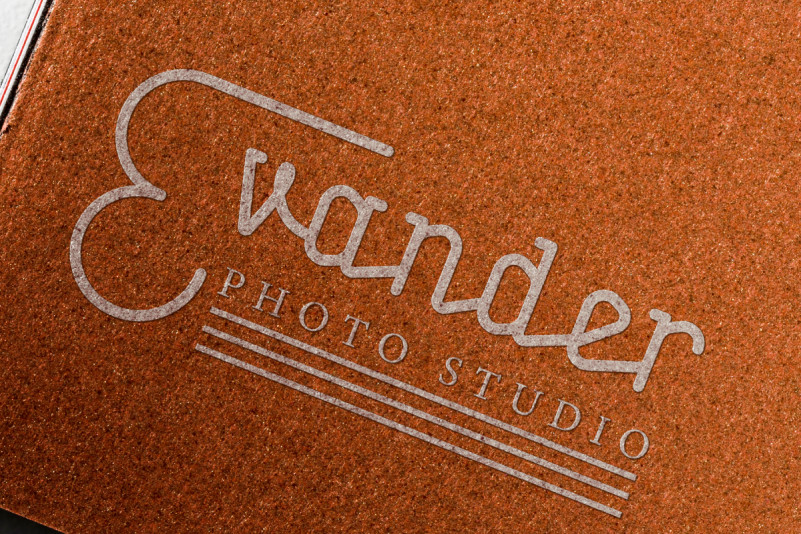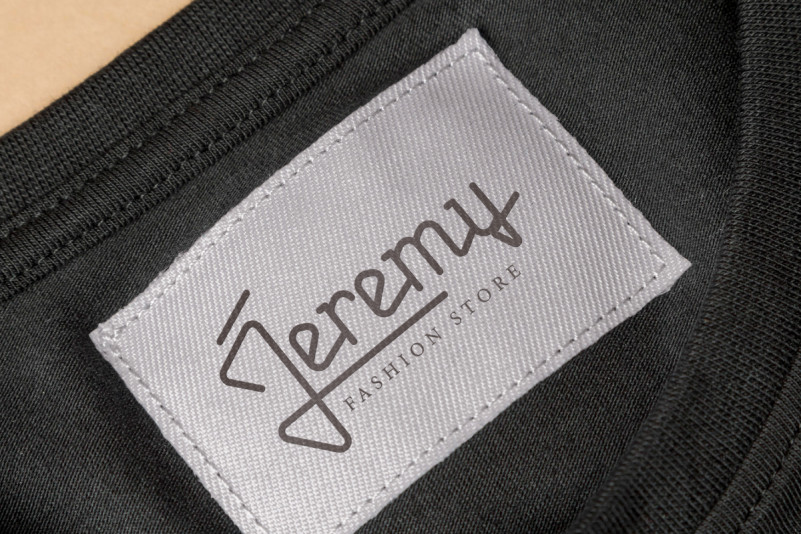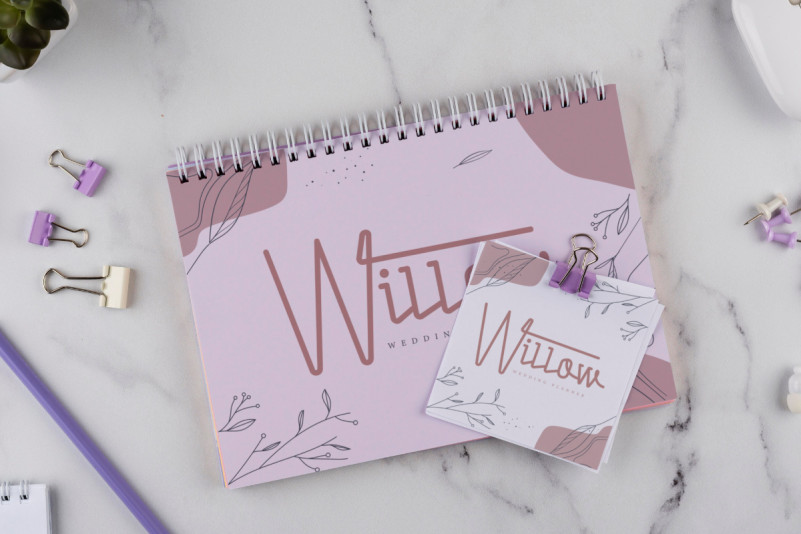
Java Hangout Font
Java Hangout Script Font is a pen writing script font with a unique look that will give you a personal vibes to your project design. The font is suitable for many industries, such as accessories, barber shop, boutique, fashion, interior design, photo studio, printing, publishing, wedding or event organizer, and more!
Java Hangout Font includes full set of Uppercase and Lowercase Basic Characters, Numerals and Punctuation, and Alternate. This font will be a good choice for those of you who want to express vintage vibe. Use this font to enhance your designs, such as billboard, brand logo, content, cover, frame art, label, mockup design, poster, screen printing, stationery, sticker, title, website, etc.